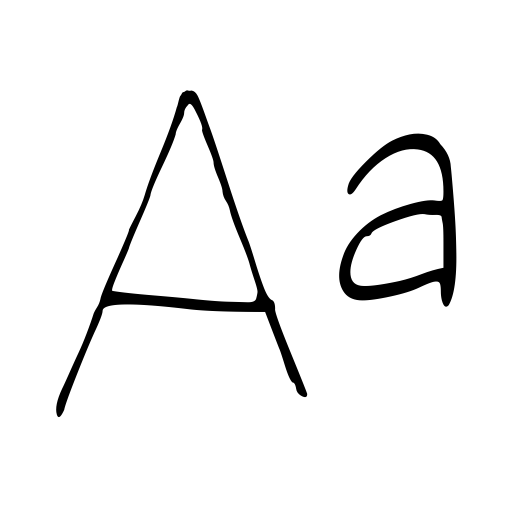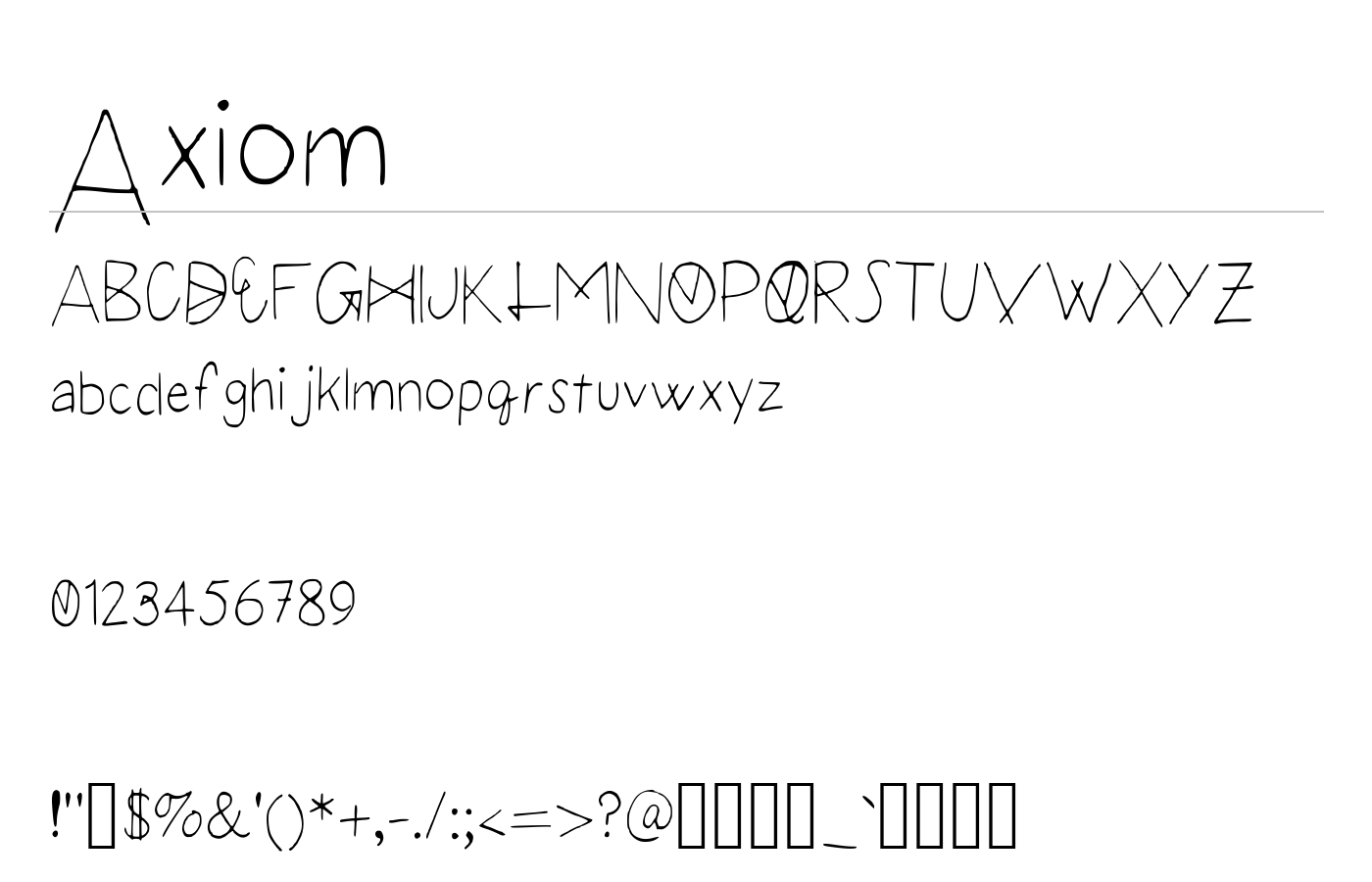
Axiom is a quirky, hand-drawn sans serif font with a light, airy feel. Its tall, thin letterforms with uneven strokes and playful, irregular shapes give it a casual and creative personality, making it ideal for informal designs, artistic projects, or anything that benefits from a whimsical, human touch. This font works well in headings, logos, or creative branding where a unique, approachable style is desired.
Axiom Font
About Axiom Font